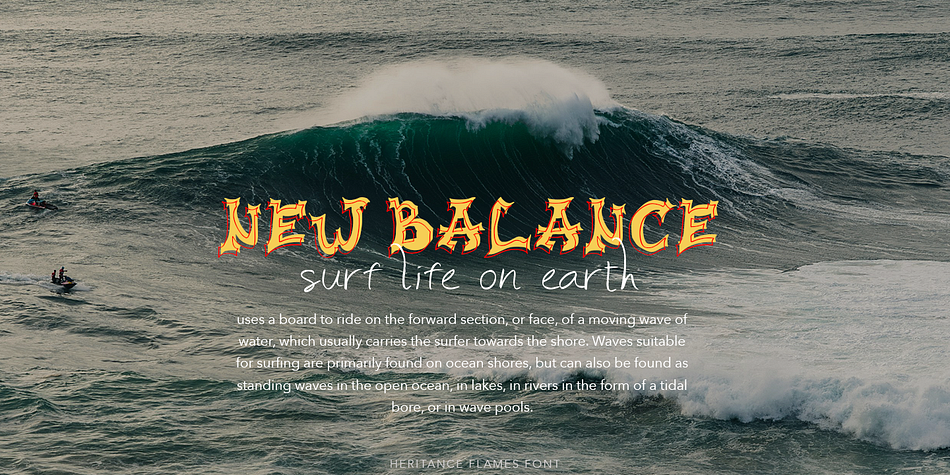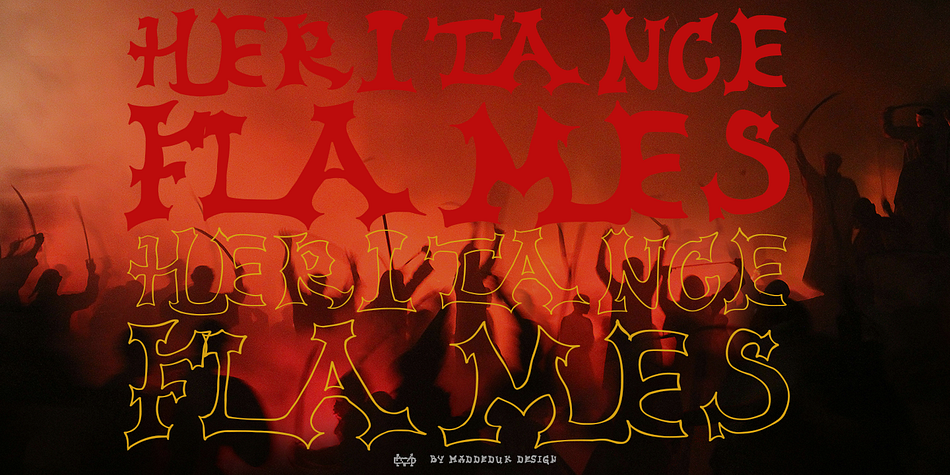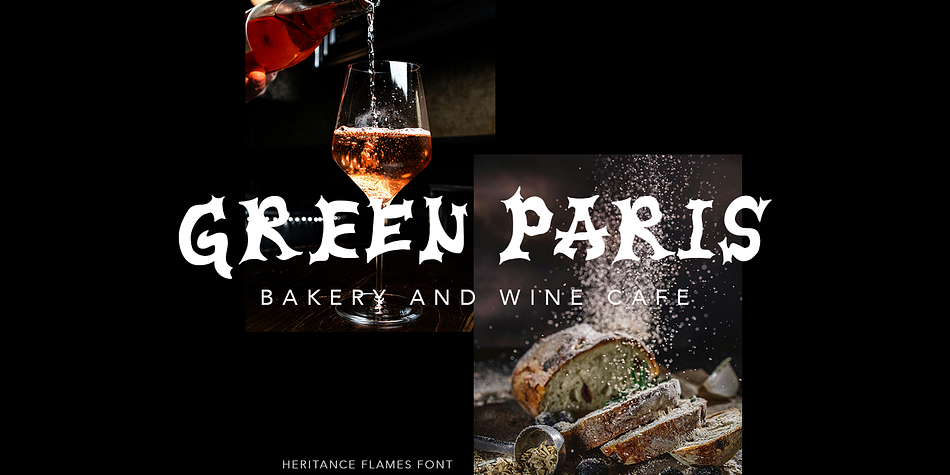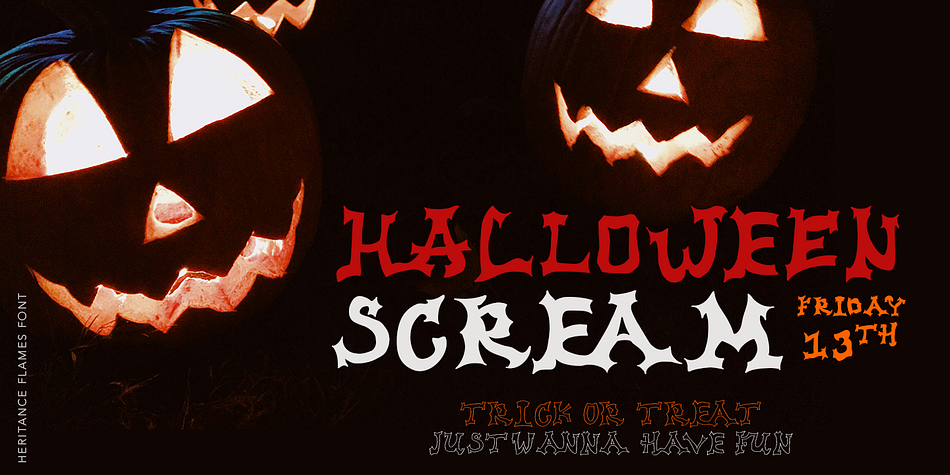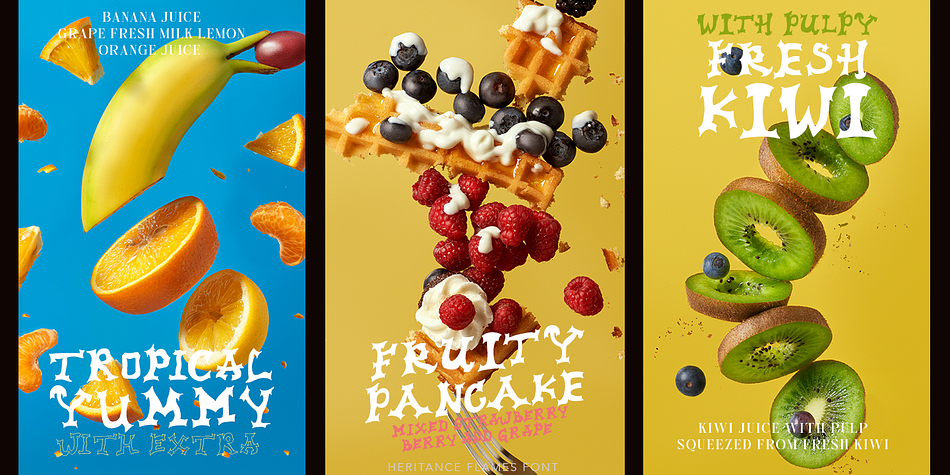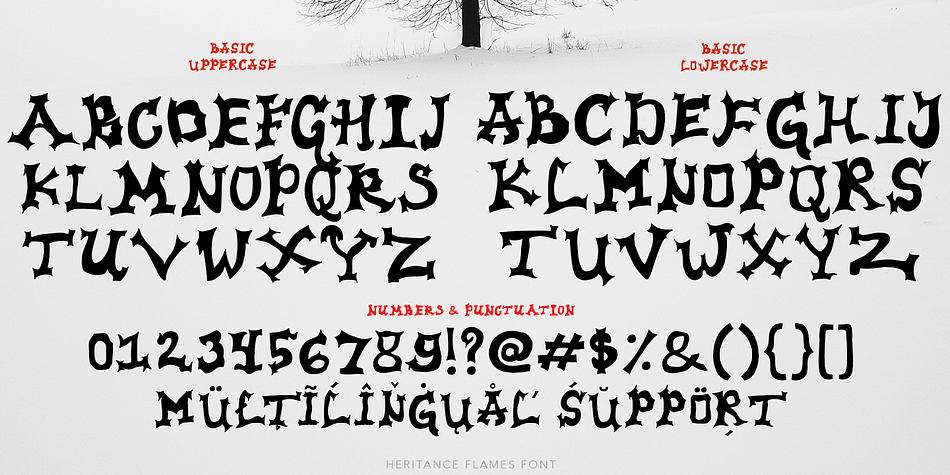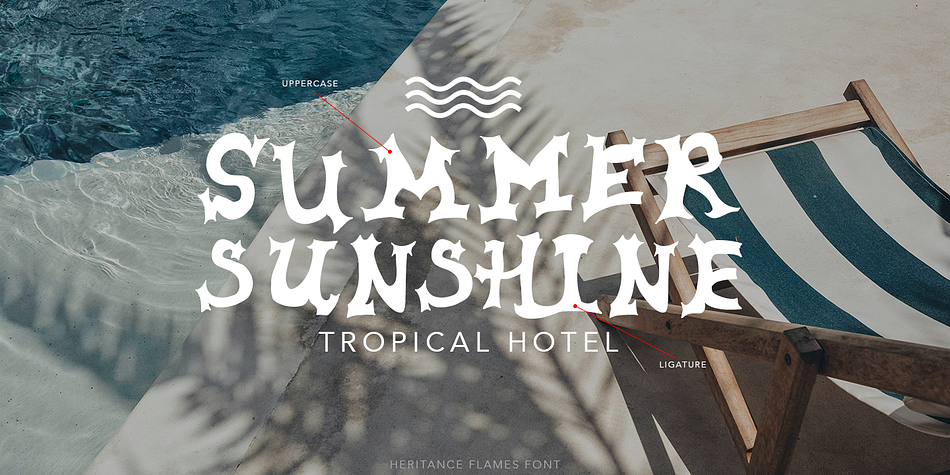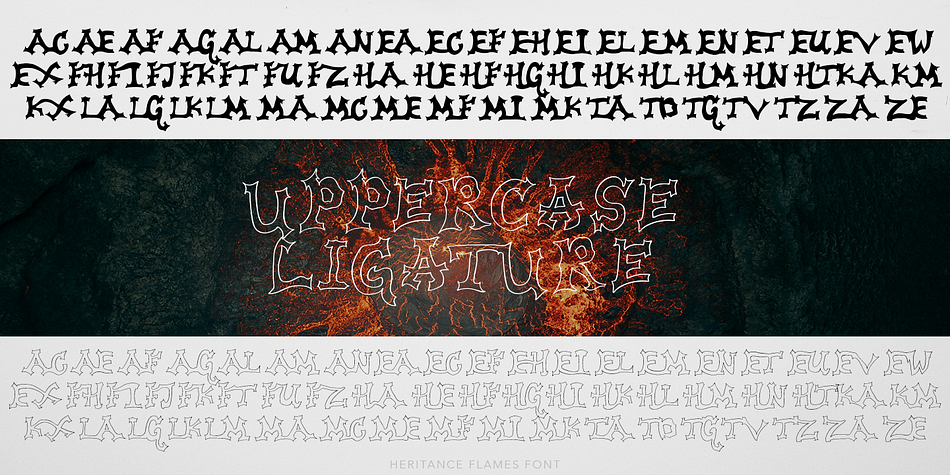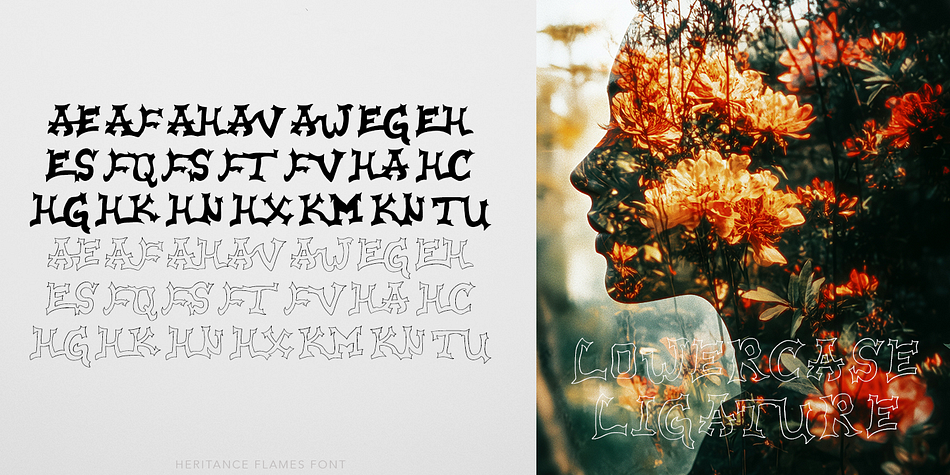
Heritance Flames
Designed by Suandana Ipandemade, Heritance Flames is a display serif font family. This typeface has two styles and was published by madeDeduk.
Introducing Heritance Flames is a fun hand-drawn font that is lettered in all caps and comes in two styles, an outline version and a filled version. Add and use this font to your favorite creative idea or anything you can think of and see the results.
- Ligature